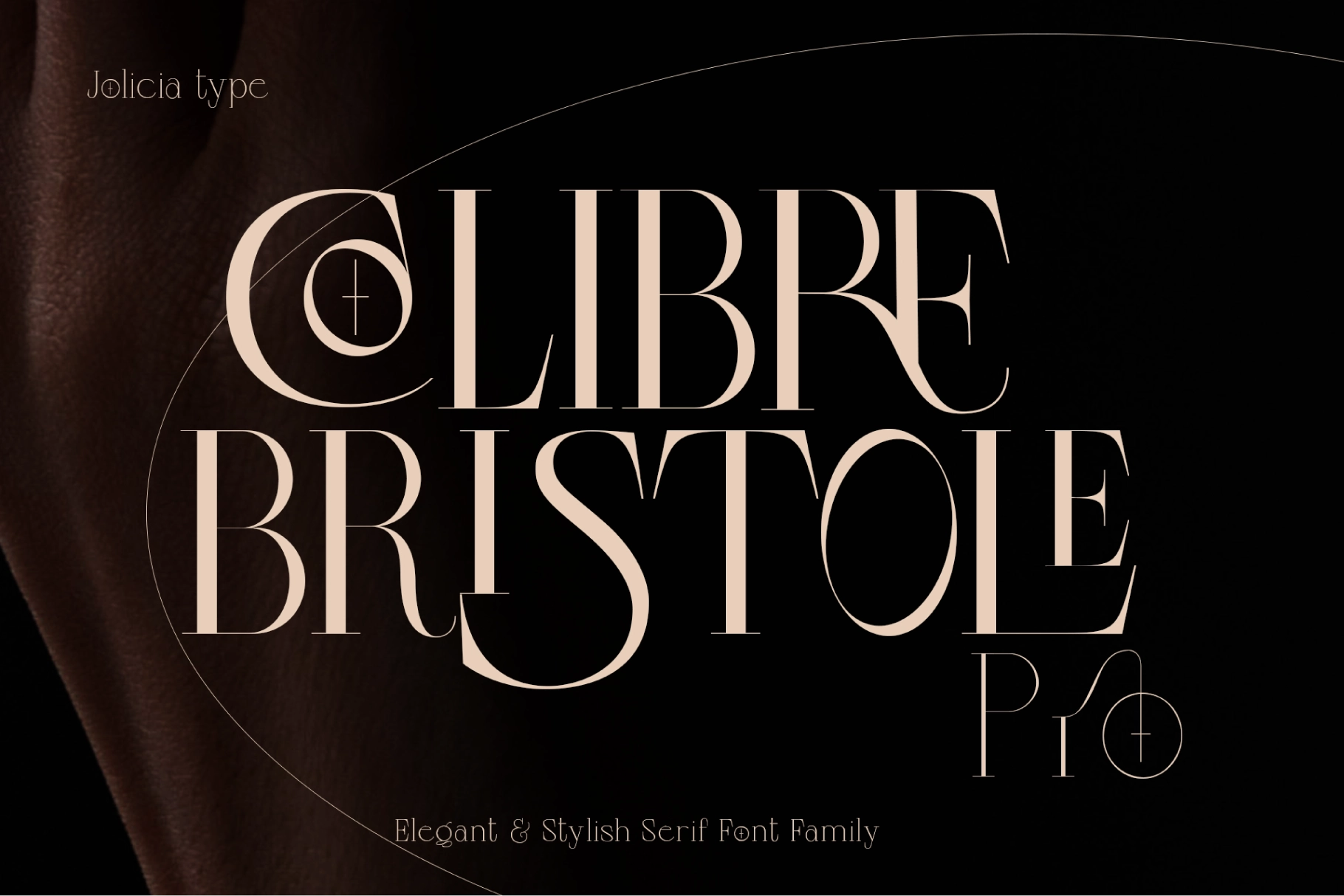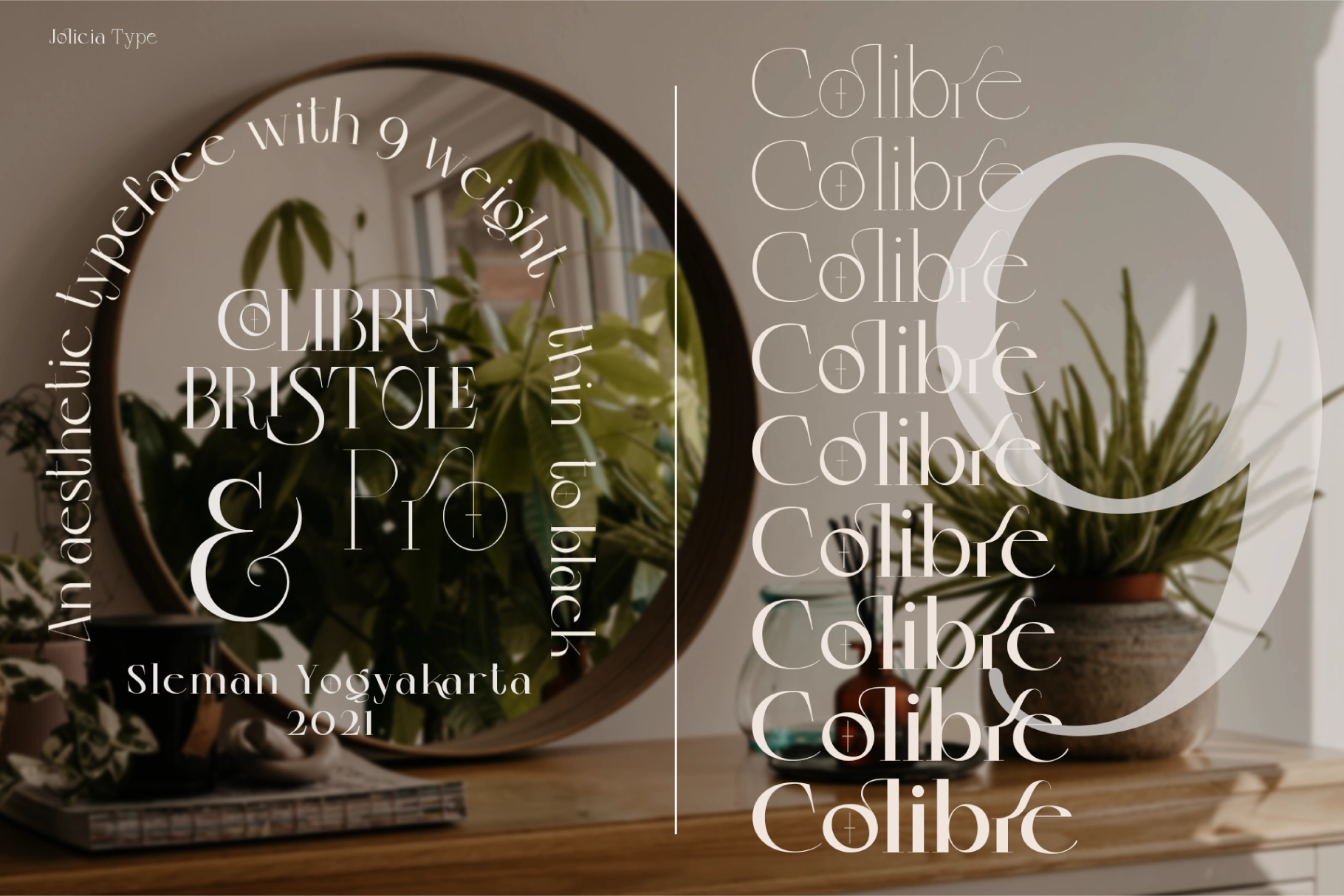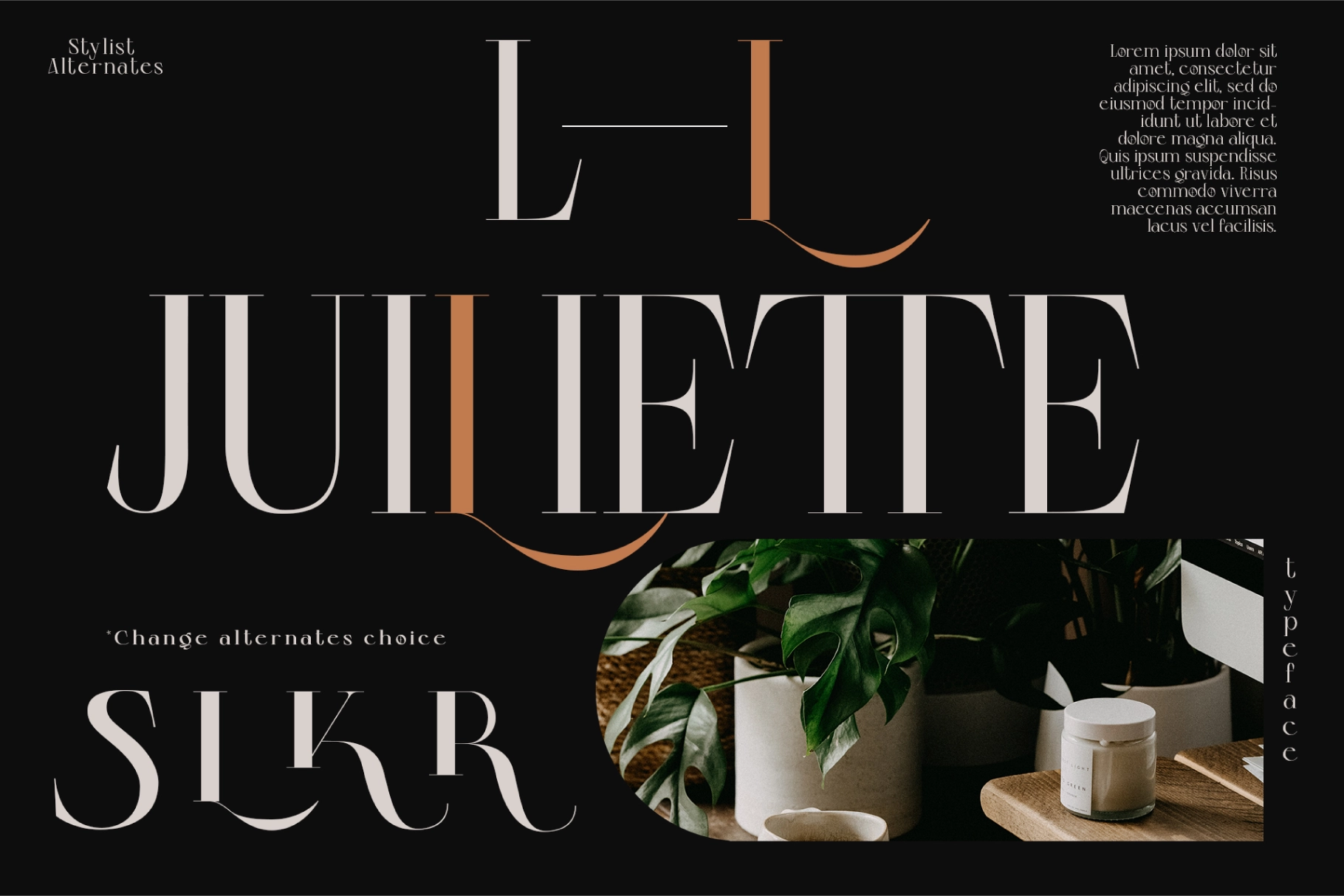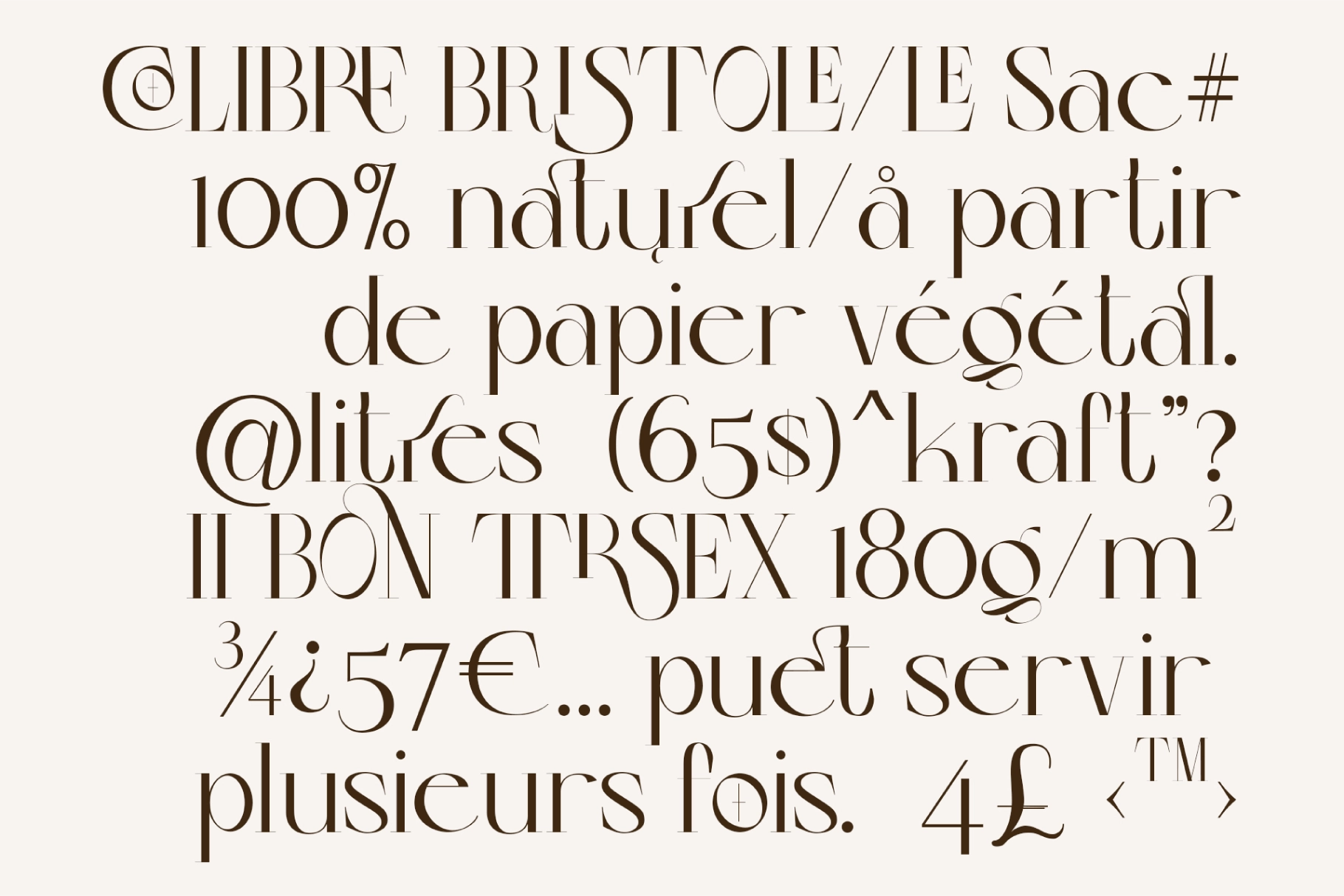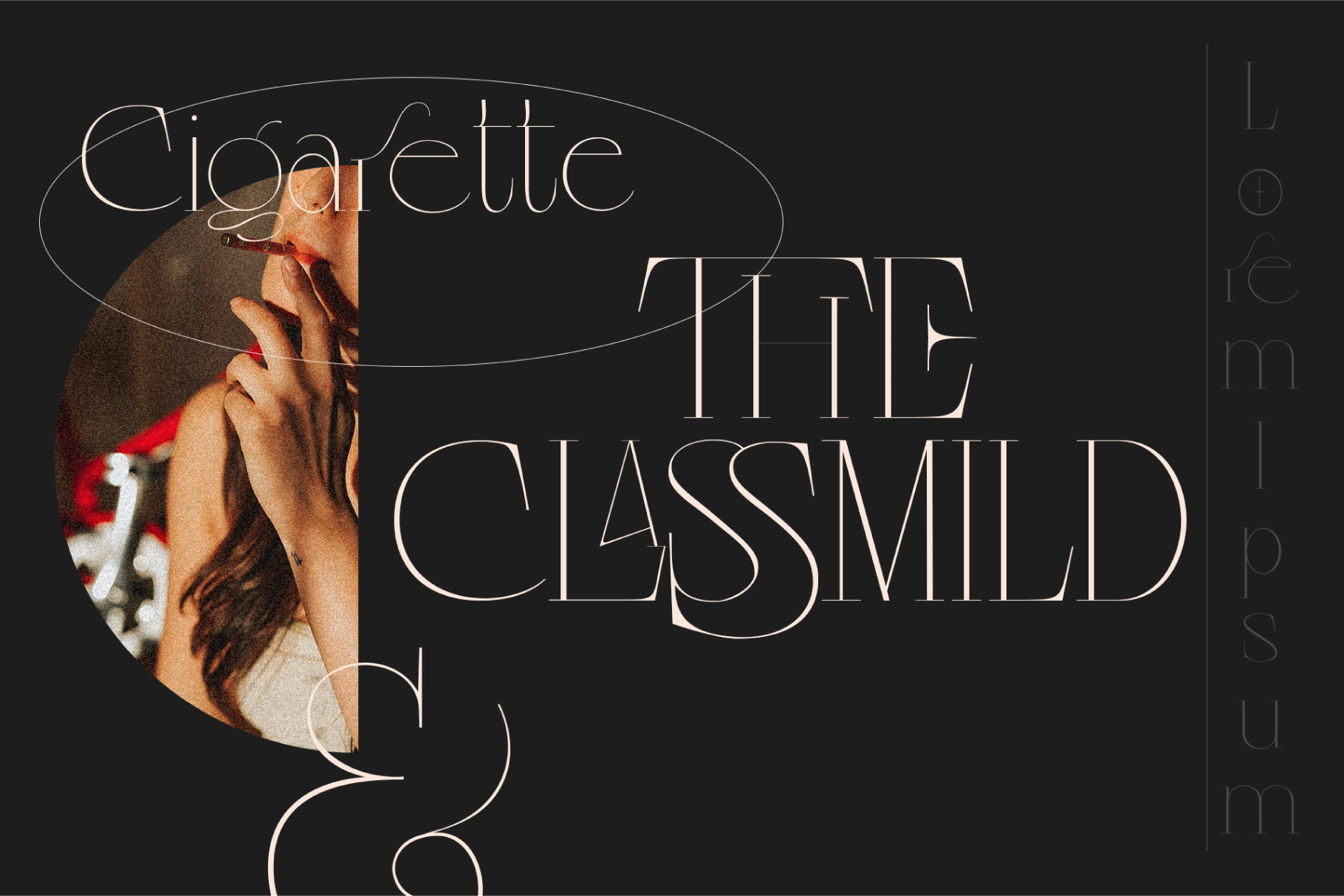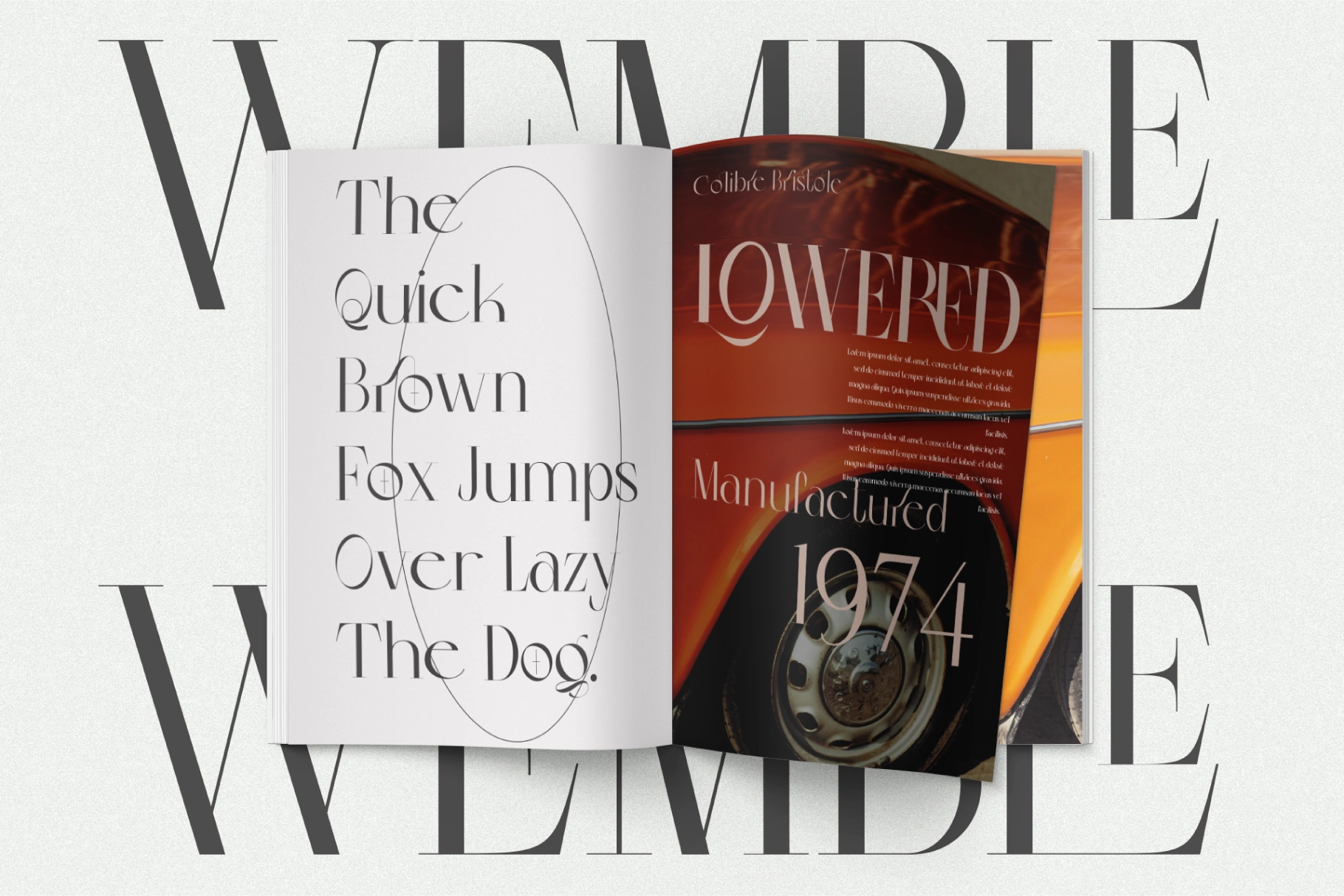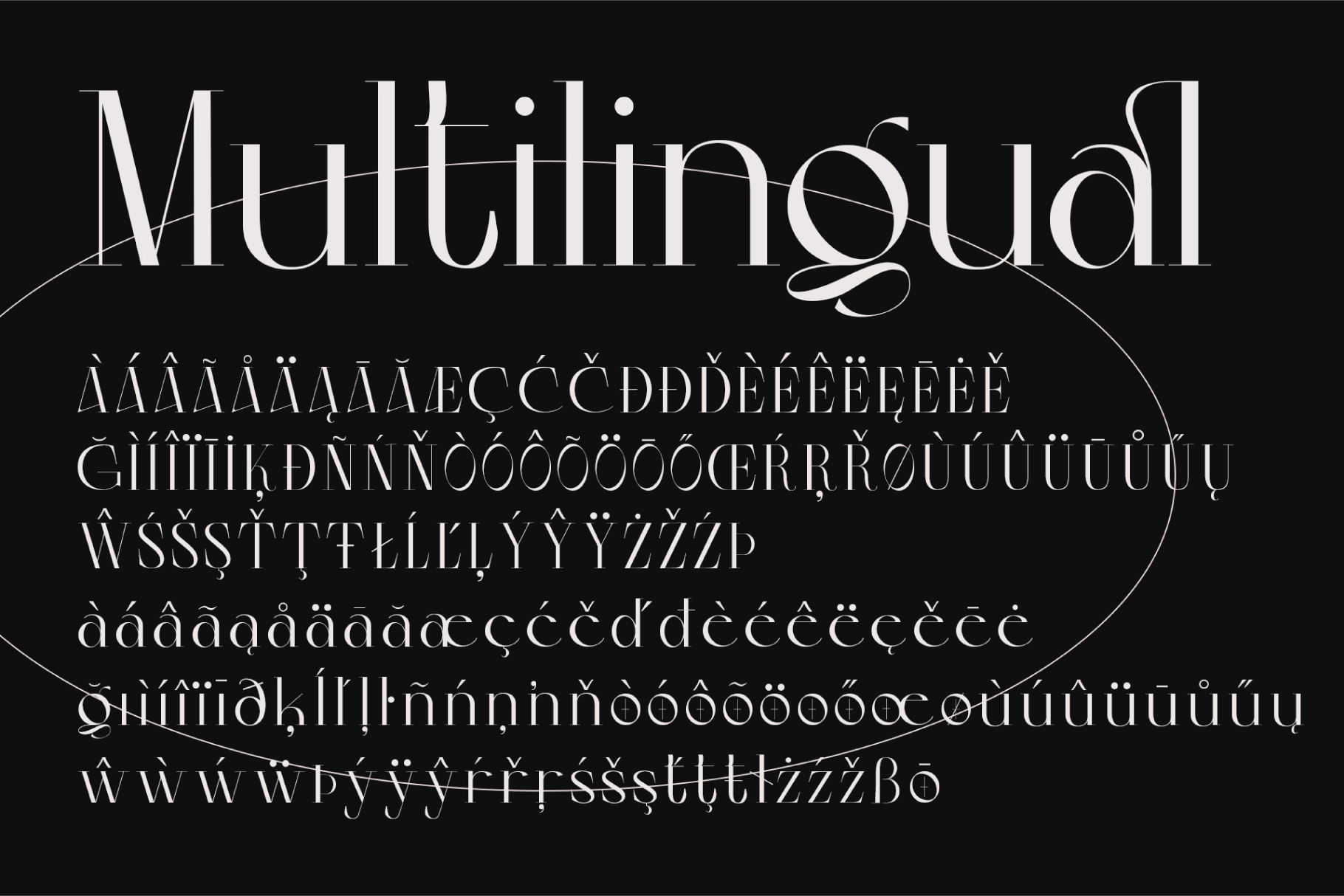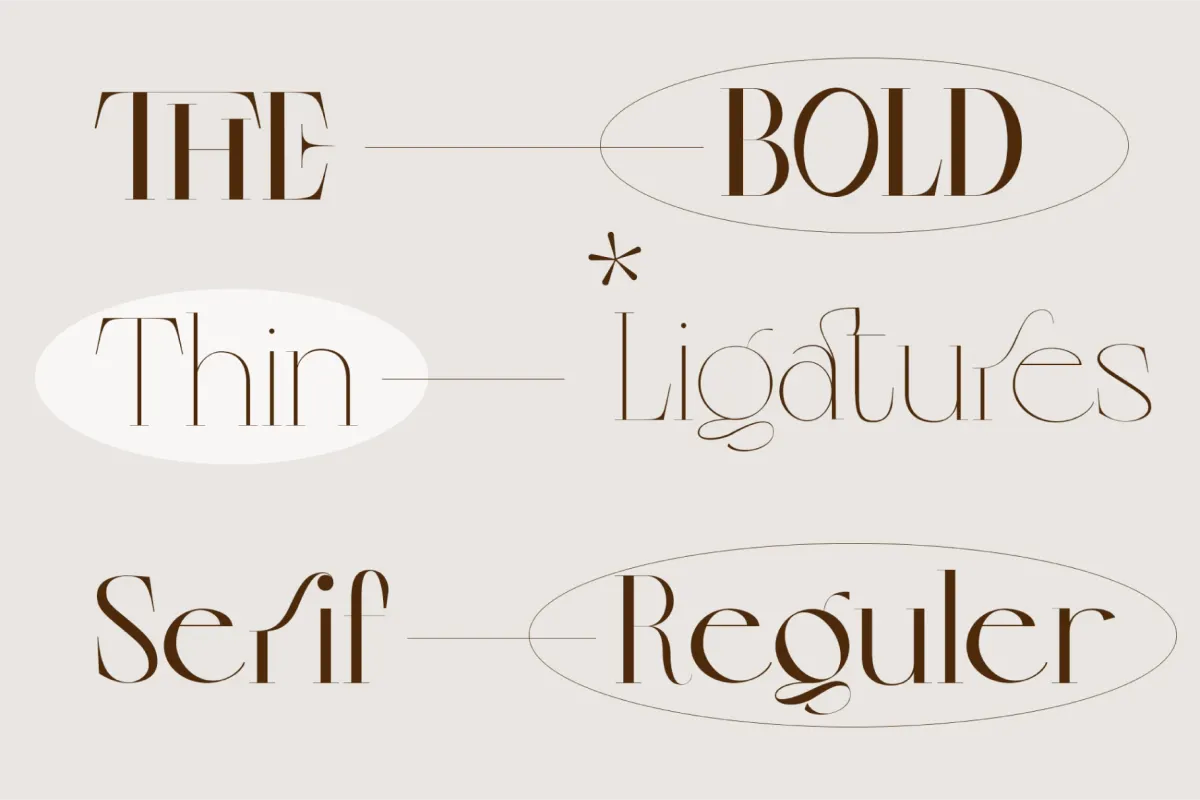
Colibre Bristole Pro - Serif Font
Colibre Bristole Pro is a sophisticated serif font family crafted with precision and elegance, designed to deliver a refined typographic experience for modern and classic design needs. This font family includes 9 carefully balanced styles ranging from Thin to Black, offering flexibility for headlines, editorial layouts, branding, packaging, and luxury visuals. Featuring 49 beautifully designed ligatures, stylistic alternates, multilingual support, and full PUA encoding, Colibre Bristole Pro allows designers to create expressive, polished, and visually engaging typography with ease.